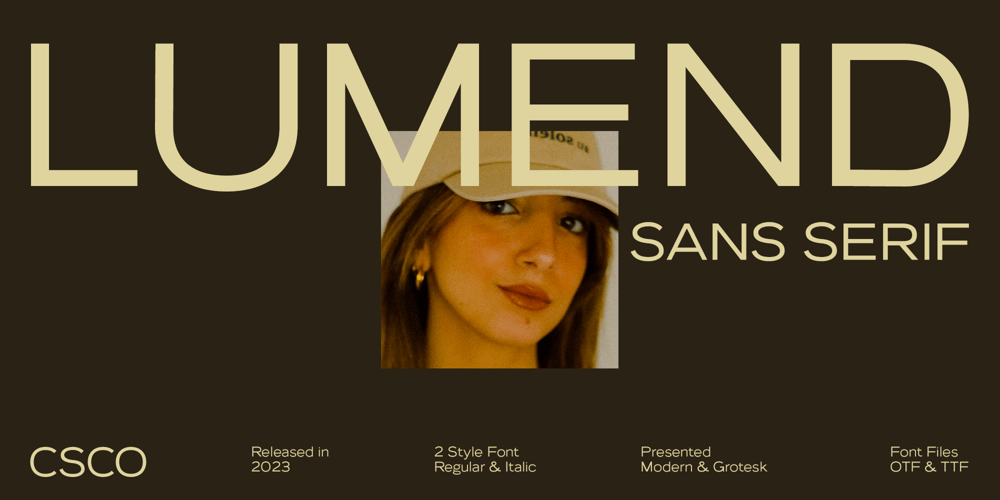
Lumend Font Family was designed by Trio Nazzar Saputra, Wahyu Hadi Yuana and published by Craft Supply Co. Lumend contains 8 styles and family package options. Lumend Modern Sans Serif FontSleek and Contemporary DesignIntroducing Lumend, a modern sans serif font with a unique grotesque twist. Its minimalist aesthetic is defined by clean lines and unadorned forms, offering a fresh, contemporary look.Versatility in ApplicationRemarkably versatile, Lumend Modern Sans Serif Font is adept in both text and title settings. Its legibility in lengthy paragraphs is impressive, while its boldness in headlines commands attention, making it ideal for a variety of design projects.Optimized for All MediumsCrafted for both digital and print use, Lumend’s clarity excels on screens and maintains crispness in print. This adaptability makes it suitable for web design, printed materials, and everything in between.